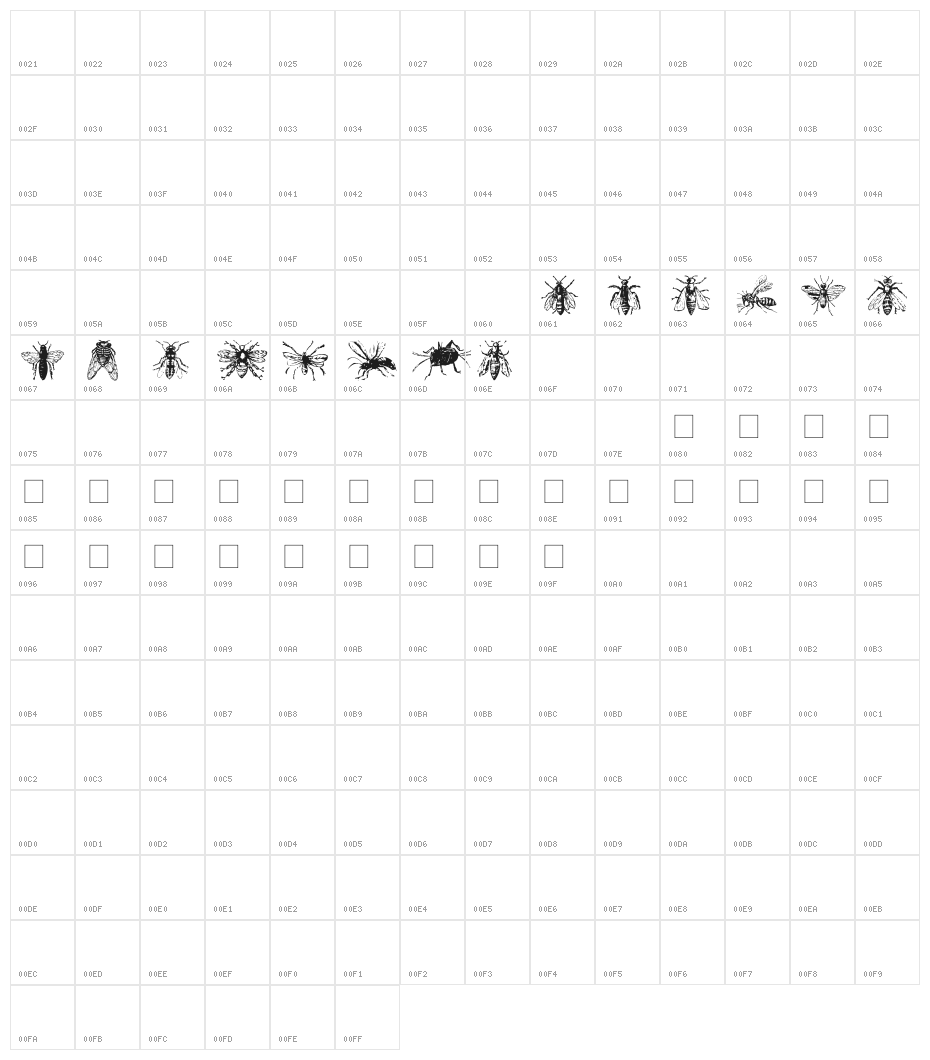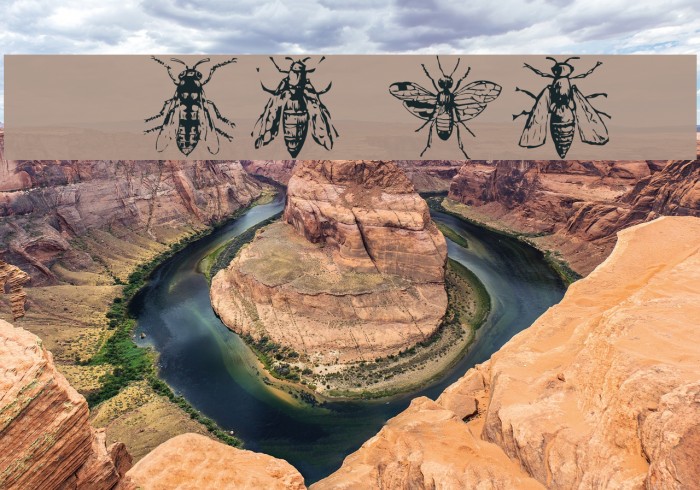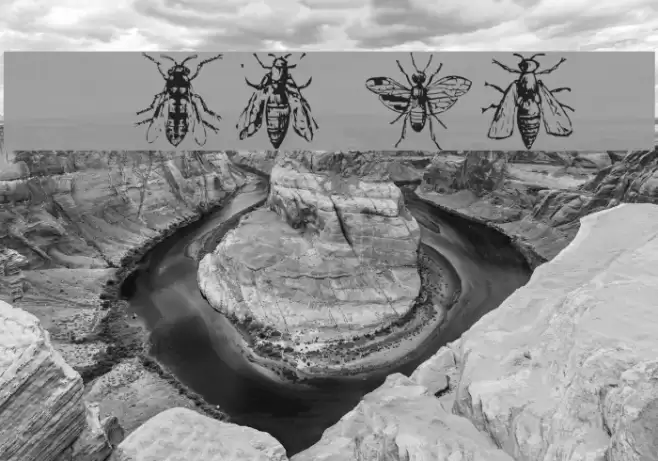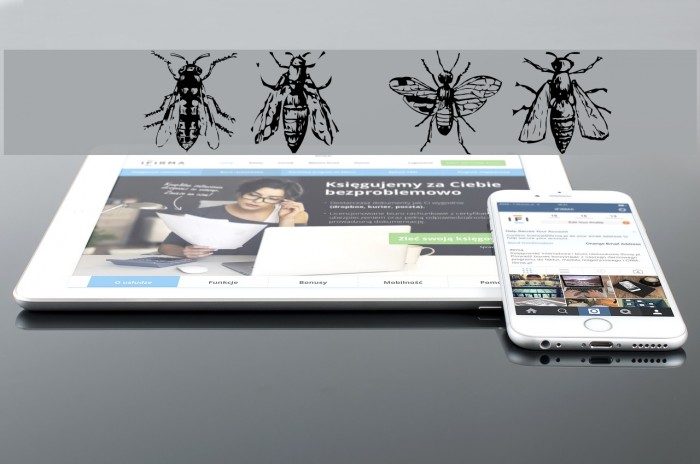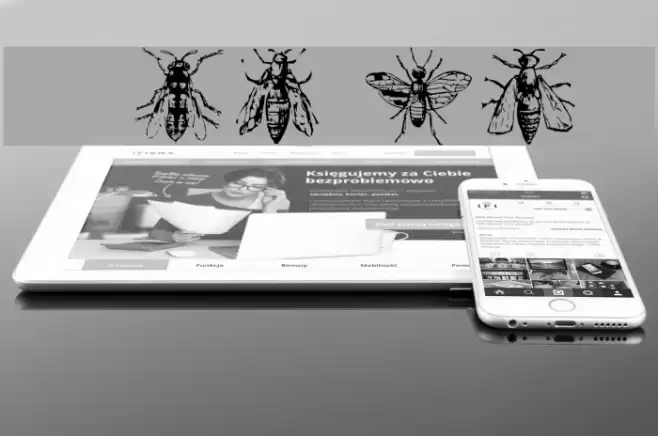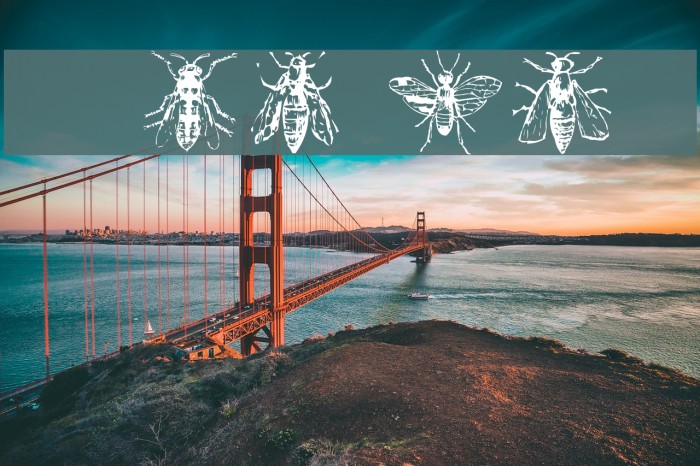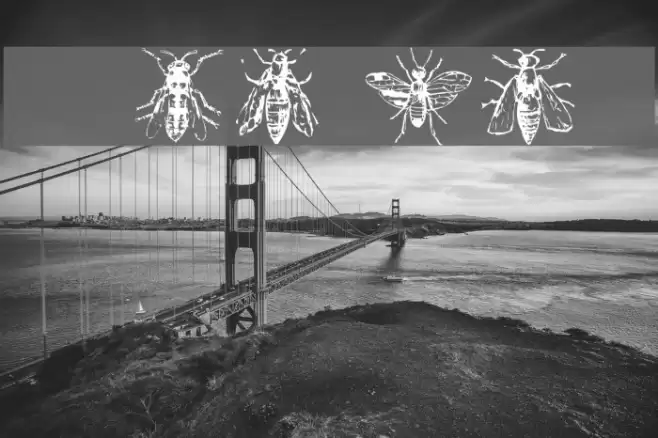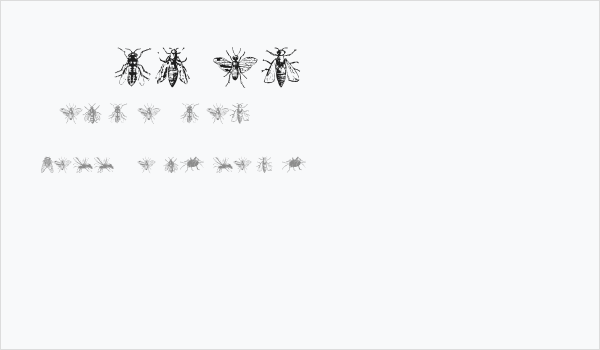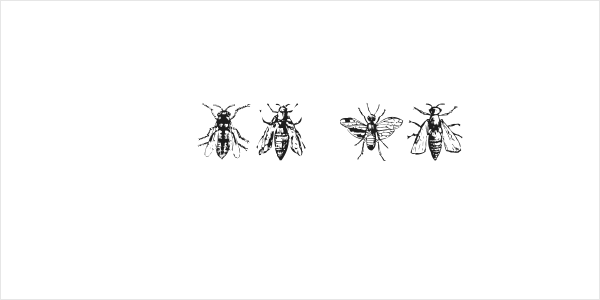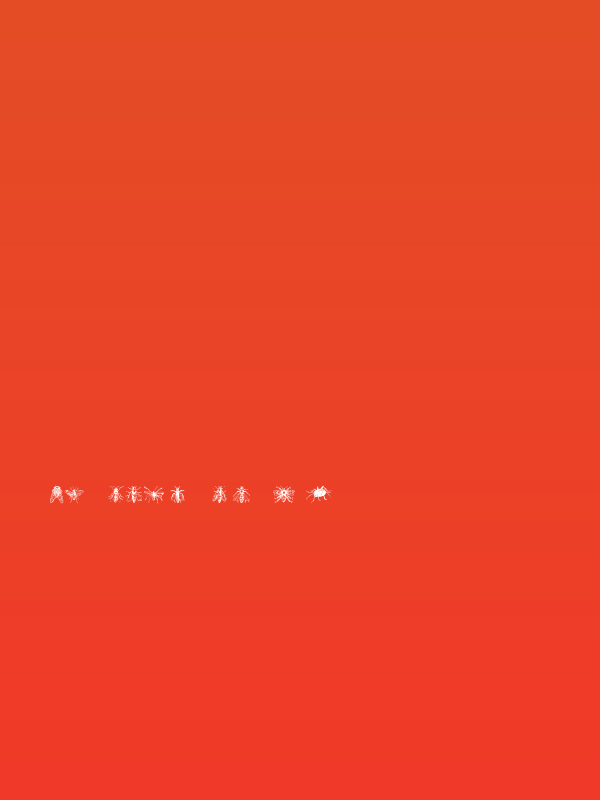
AEZinsects Font
AEZinsects Description
A decorative dingbat font featuring detailed black and white illustrations of various insects, each glyph representing a different species with intricate linework and naturalistic detail.
Overall StyleDecorative, Naturalistic, Vintage
Use CaseDecorative elements, Illustrations, Thematic dividers
Proposed ProjectsNature-themed posters, educational materials, scrapbooking, children's books, decorative borders, and invitations.